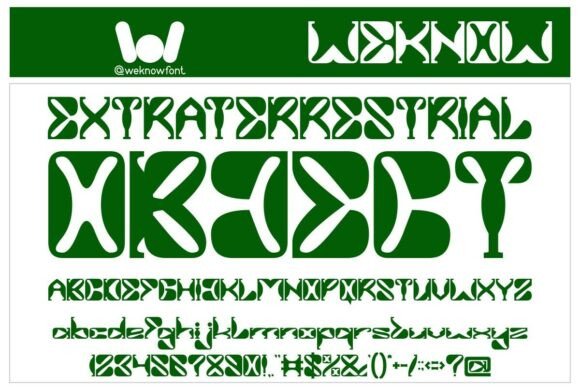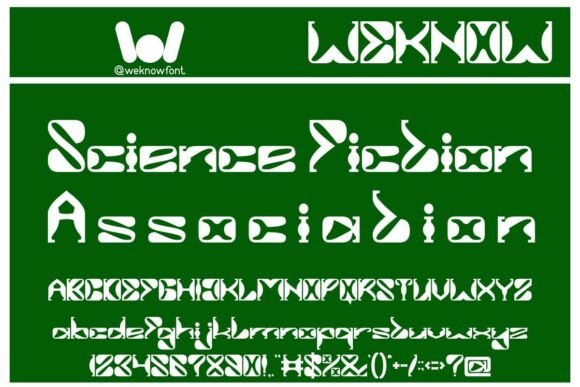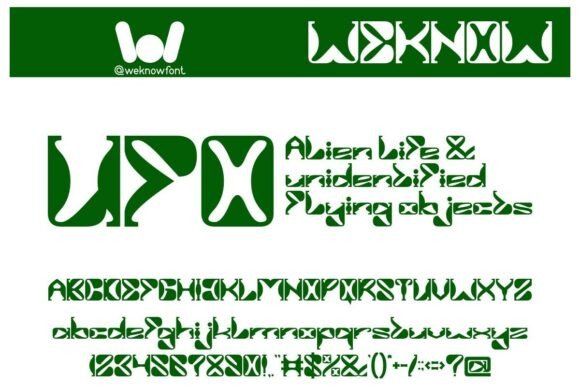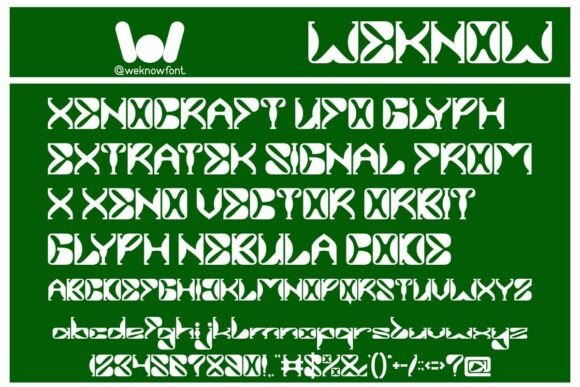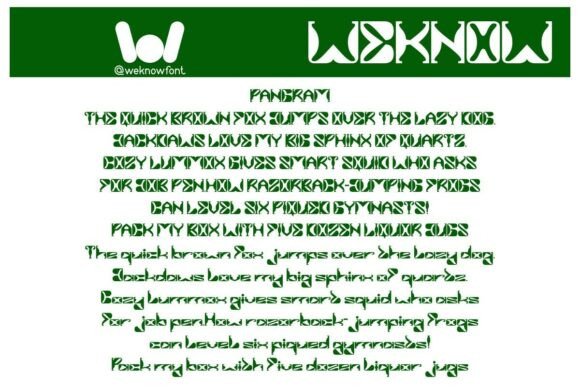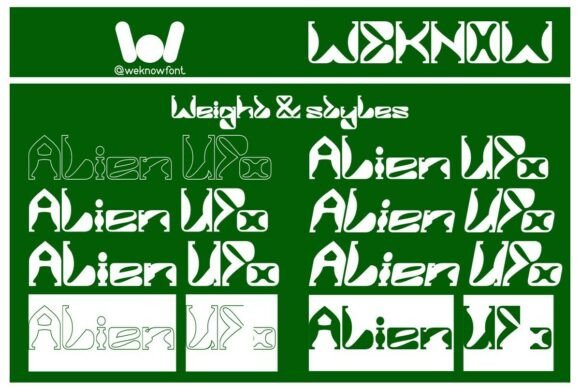
Unleash the Essence of the Futuristic Universe with the Alien UFO Font
In the realm of typography, few fonts have managed to capture the imagination of designers and crafters quite like the Alien UFO font. This technical marvel fuses techno-gothic aesthetics with an otherworldly flair, making it the perfect choice for those looking to add a bold and futuristic touch to their creative endeavors. Whether you’re working on a logo, branding, or corporate identity, the Alien UFO font is sure to make your project stand out from the crowd.
A Typographical Masterpiece
The Alien UFO font is a true masterpiece of typographical design. Its unique blend of techno-gothic and extra-terrestrial elements creates a truly eye-catching effect that’s sure to grab attention. The font’s bold and futuristic aesthetic makes it perfect for headlines, titles, and other display text, while its versatility ensures that it can be used in a wide range of creative applications.
Ideal for Creative Projects
The Alien UFO font is ideal for a wide range of creative projects, from music album covers and movie posters to game interfaces and magazine layouts. Its unique and experimental dimension adds a touch of excitement and energy to any project, making it perfect for designers and crafters looking to push the boundaries of their creativity.
Enhance Your Digital Presence
In today’s digital age, having a strong online presence is more important than ever. The Alien UFO font can help you enhance your digital presence and make your content more engaging and compelling. Whether you’re creating YouTube videos, Instagram posts, or blog articles, this font is sure to help you drive the essence of your content straight to your audience.
Key Features of the Alien UFO Font
- Unique and Experimental Design: The Alien UFO font features a truly unique and experimental design that’s sure to grab attention.
- Techno-Gothic Aesthetics: The font’s techno-gothic aesthetics give it a bold and futuristic look that’s perfect for a wide range of creative applications.
- Extra-Terrestrial Flair: The font’s extra-terrestrial flair adds a touch of excitement and energy to any project.
- Versatile and Flexible: The Alien UFO font is versatile and flexible, making it perfect for use in a wide range of creative applications.
Tips for Using the Alien UFO Font
Here are a few tips for using the Alien UFO font in your creative projects:
- Use it for Headlines and Titles: The Alien UFO font is perfect for headlines and titles, where its bold and futuristic aesthetic can really make an impact.
- Experiment with Different Colors and Textures: Don’t be afraid to experiment with different colors and textures when using the Alien UFO font. This can help you create a truly unique and eye-catching effect.
- Pair it with Other Fonts: The Alien UFO font can be paired with other fonts to create a truly unique and interesting effect. Try pairing it with a clean and simple sans-serif font for a bold and futuristic look.
The Alien UFO font is a true typographical masterpiece that’s sure to unleash the essence of the futuristic universe in your creative projects. With its unique blend of techno-gothic and extra-terrestrial elements, this font is perfect for designers and crafters looking to add a bold and futuristic touch to their work. So why wait? Let your creativity go interstellar with the Alien UFO font and set a new benchmark for your art.
Get Ready to Take Your Creativity to the Next Level